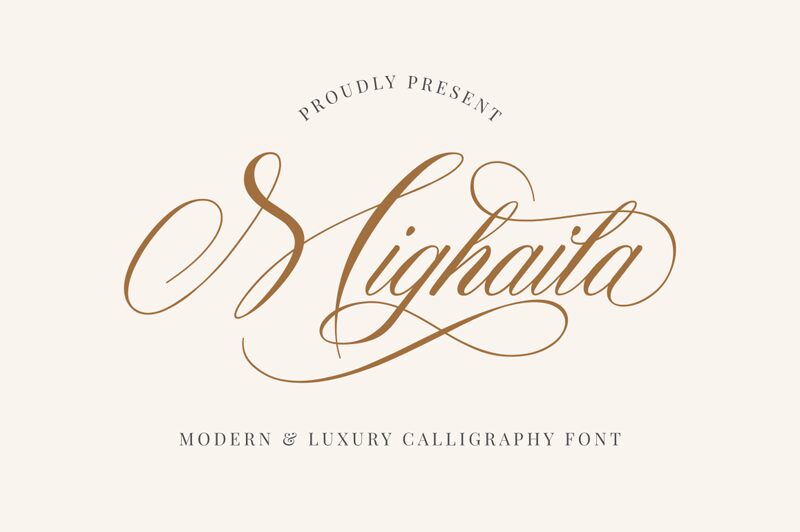
Mighaila
Mighaila is a stunning calligraphy font created by RaffaSyad Studio. Its semi-light weight and semi-condensed width make it ideal for a variety of creative projects that require an elegant touch. Use it for wedding invitations, greeting cards, logos, or any other designs that need a sophisticated aesthetic. With its beautiful curves and swooping lines, Mighaila effortlessly adds a touch of class to any project. Whether you're working on branding for a luxury brand or creating something special for your personal use, Mighaila is the perfect choice to elevate your design game.